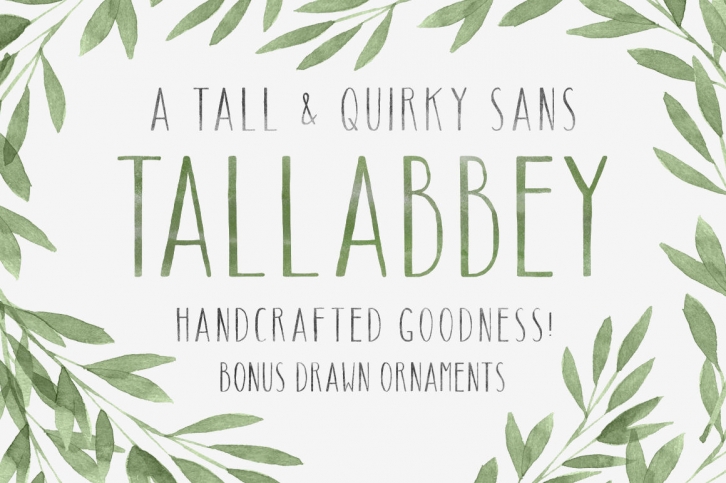
Recently, (this week) I have extended Tall Abbey's glyph range to cover all Latin 1 glyphs. In addition to this, I've added a variety of hand drawn bits and pieces that you can use to build your own custom designs that beautifully complement this tall font.